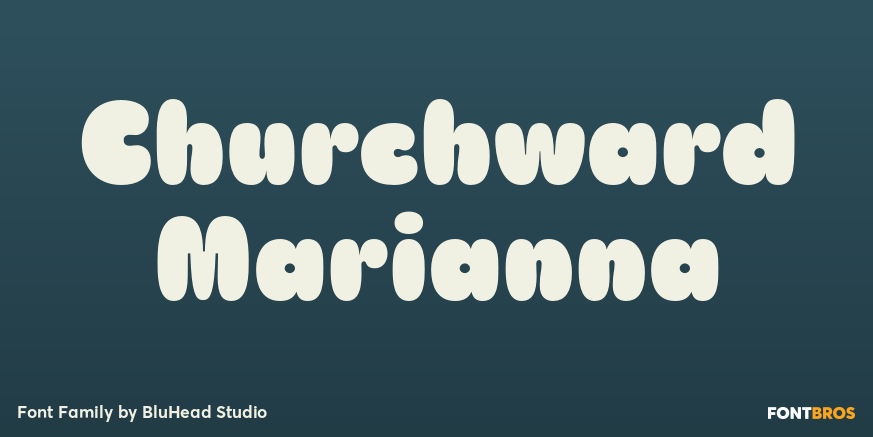
Churchward Marianna
Churchward Marianna Shadow is a new OpenType font released by BluHead Studio from the exciting and unique library of Joseph Churchward type designs. The round, bulbous letterforms take on individual personalities of their own. These fonts can\’t wait to…